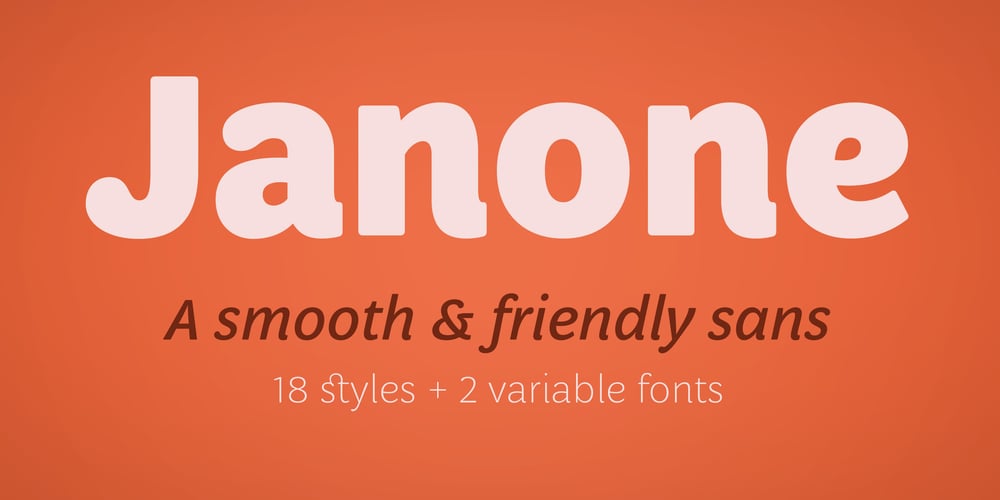
Janone
Janone font
Janone Font Family was designed by Ricardo Esteves Gomes and published by Outras Fontes. Janone contains 20 styles and family package options. Janone is a versatile and friendly sans serif family crafted for a broad range of applications. It includes 18 fonts – in 9 weights and their respective italics. Designed for legibility and grace, Janone’s smooth letterforms blend functionality with style. The family is ment both for long texts and display situations, in small or big sizes. Its letterforms and fine-tuned spacing ensure comfortable reading. All the fonts include some OpenType features such as standard ligatures, discretionary ligatures, contextual alternates and multiple figure styles (lining, oldstyle, and tabular). The entire family can be used both as static instances or variable fonts.